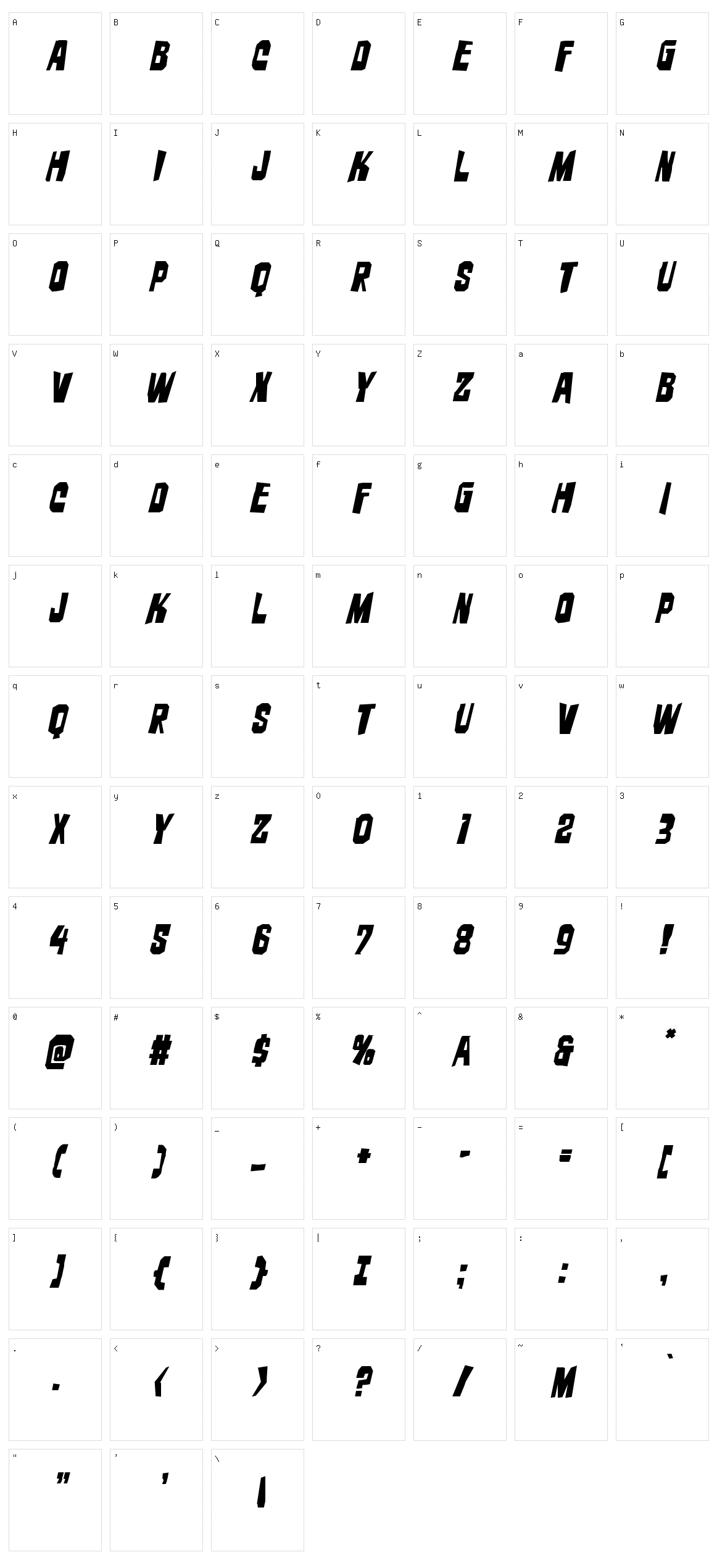
This font comes with the following 20 versions: Regular, Italic, Rotalic, Semi-Italic, Leftalic, Se,i-Leftalic, Condensed, Condensed Italic, Expanded, Expanded Italic, 3D, 3D Italic, Spaced, Spaced Italic, Rotated, Rotated 2, Jagged, Jagged Italic, Wavy, Wavy Italic.